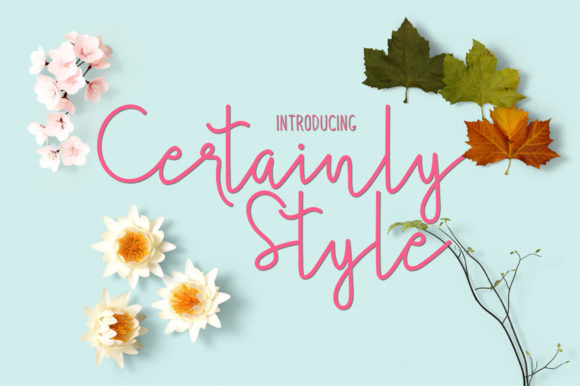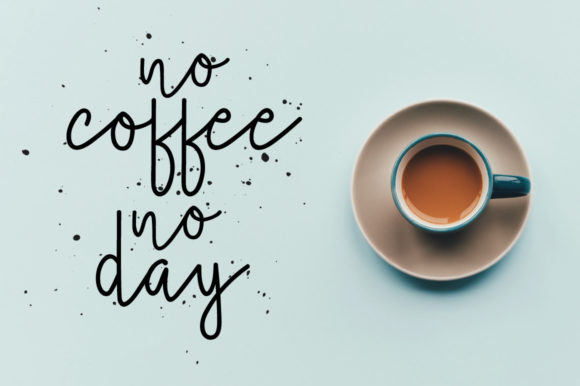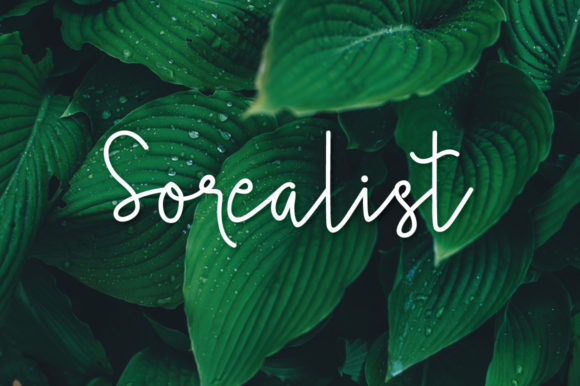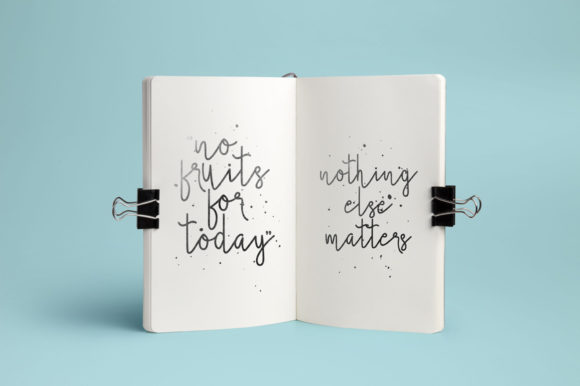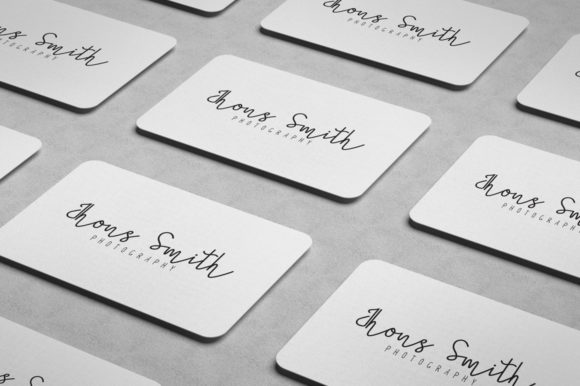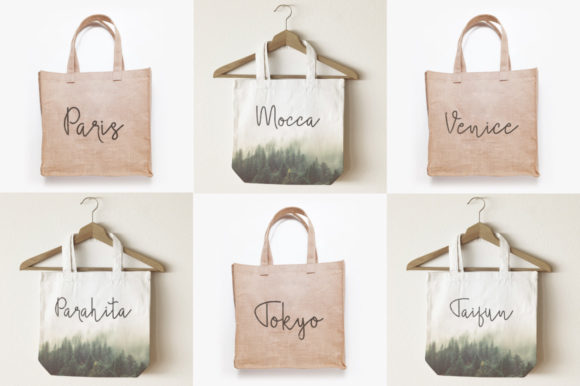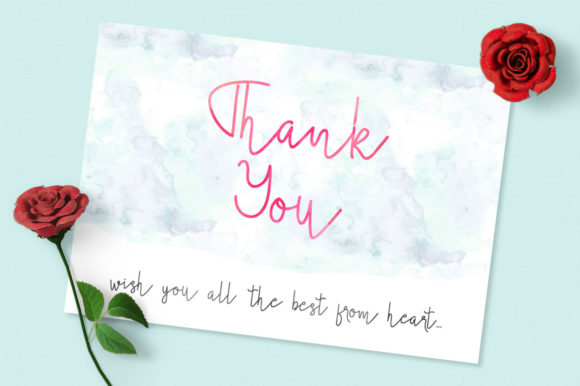
Certainly Style Font
About Certainly Style Font
Certainly Style is a beautiful light handwritten font with a unique feel and a stunning impact. It will add a luxury spark to any design project that you wish to create!